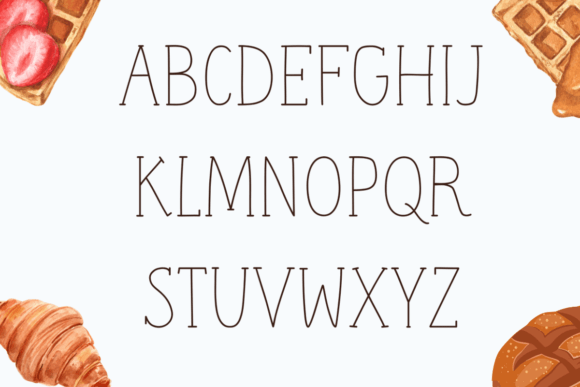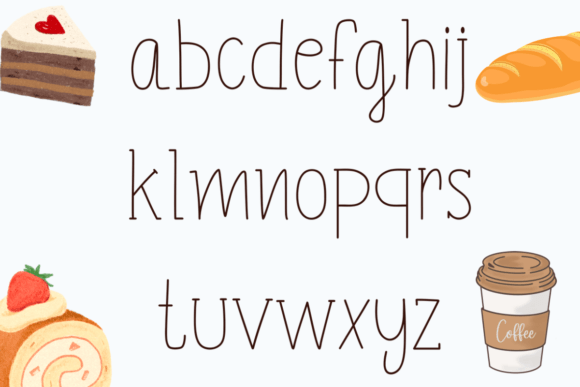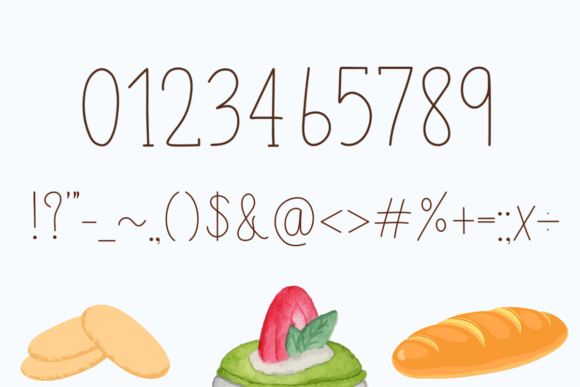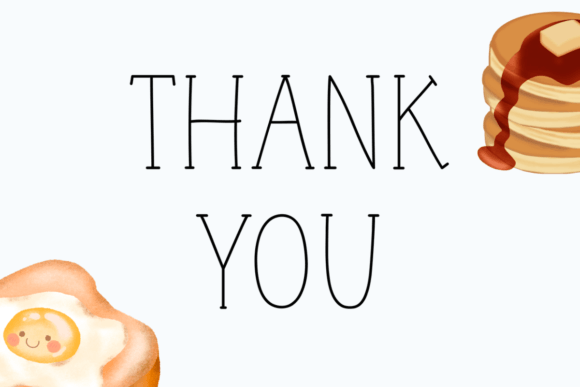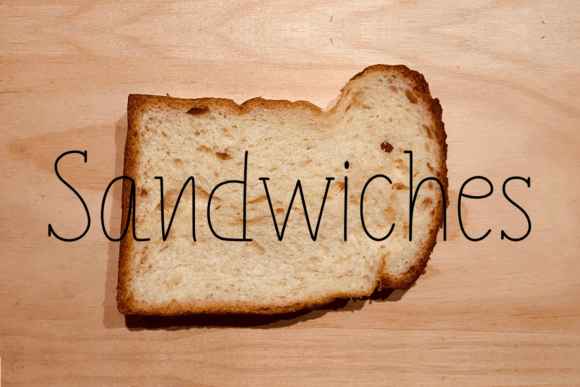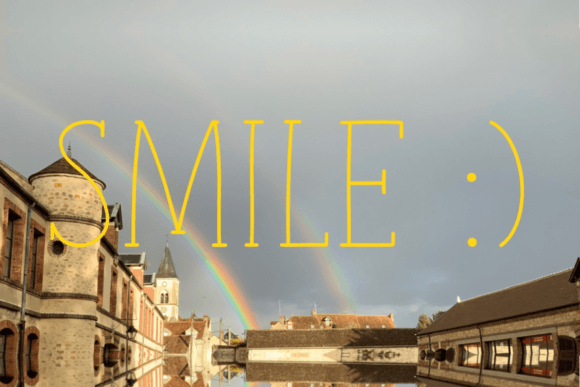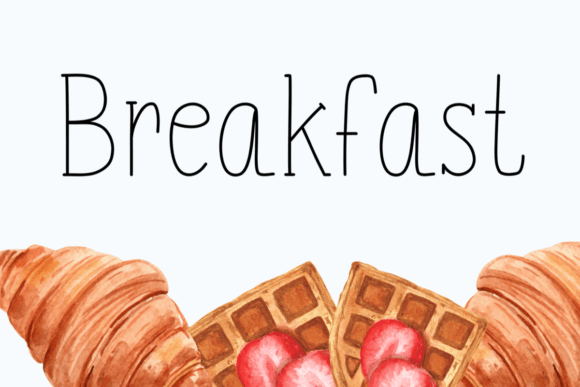
Introducing Breakfast Font: The Perfect Handwritten Font for Your Creative Projects
Are you a designer, crafter, or DIY enthusiast looking for a font that adds a touch of warmth and personality to your creations? Look no further than Breakfast Font, a beautiful handwritten font that’s perfect for a variety of projects. In this article, we’ll explore the features and benefits of Breakfast Font, and show you how to use it to take your designs to the next level.
What is Breakfast Font?
Breakfast Font is a stunning handwritten font that’s designed to bring a sense of joy and playfulness to your designs. With its delicate and charming letterforms, this font is perfect for creating eye-catching headings, titles, and text that will capture the attention of your audience. Whether you’re working on a cartoon-related design, spring craft, children’s game, or any other project that requires a lovely touch, Breakfast Font is an amazing choice.
Key Features of Breakfast Font
- Handwritten style: Breakfast Font features a beautiful handwritten style that’s perfect for creating unique and personalized designs.
- Adorable and beautiful: This font is designed to be adorable and beautiful, making it perfect for designs that require a touch of whimsy and charm.
- Versatile: Breakfast Font can be used for a wide range of projects, from cartoon-related designs to spring crafts, children’s games, and more.
- Easy to read: Despite its playful style, Breakfast Font is easy to read, making it perfect for use in headings, titles, and body text.
Use Cases for Breakfast Font
Breakfast Font is a versatile font that can be used for a wide range of projects. Here are some use cases to get you started:
- Cartoon-related designs: Add a playful touch to your cartoon characters, comics, or animations with Breakfast Font.
- Spring crafts: Create beautiful and colorful spring-themed crafts, such as greeting cards, invitations, or decorations, with Breakfast Font.
- Children’s games: Use Breakfast Font to create fun and engaging text for children’s games, puzzles, or activity sheets.
- Stationery and invitations: Add a personal touch to your stationery, invitations, or greeting cards with Breakfast Font.
- Digital products: Use Breakfast Font to create eye-catching text for your digital products, such as ebooks, printables, or courses.
Tips for Using Breakfast Font
Here are some tips for getting the most out of Breakfast Font:
- Use it sparingly: Breakfast Font is a bold and playful font, so use it sparingly to add emphasis to your designs.
- Pair it with other fonts: Experiment with pairing Breakfast Font with other fonts to create a unique and visually appealing design.
- Adjust the size and color: Adjust the size and color of Breakfast Font to suit your design needs.
- Experiment with effects: Try adding effects, such as shadows or textures, to give Breakfast Font a unique look.
Breakfast Font is a beautiful and versatile handwritten font that’s perfect for designers, crafters, and DIY enthusiasts. With its adorable and beautiful letterforms, this font is sure to add a touch of warmth and personality to your designs. Whether you’re working on a cartoon-related design, spring craft, children’s game, or any other project, Breakfast Font is an amazing choice. So why wait? Download Breakfast Font today and start creating stunning designs that will capture the attention of your audience!